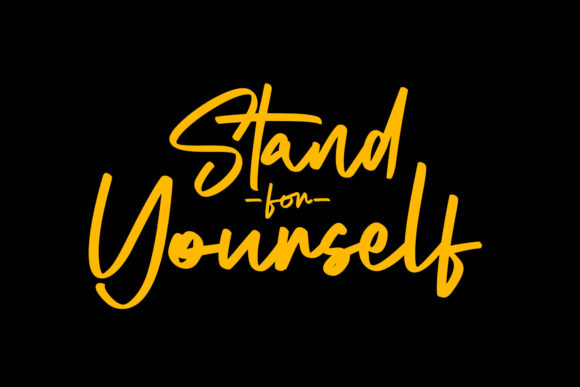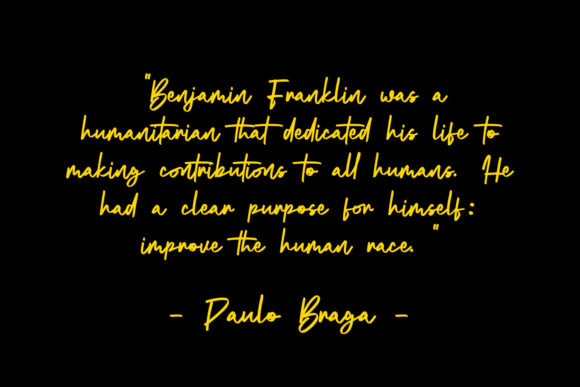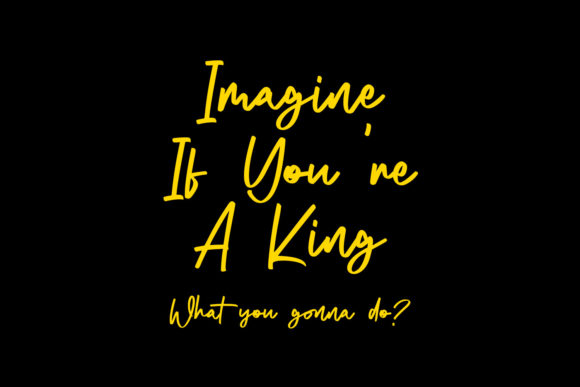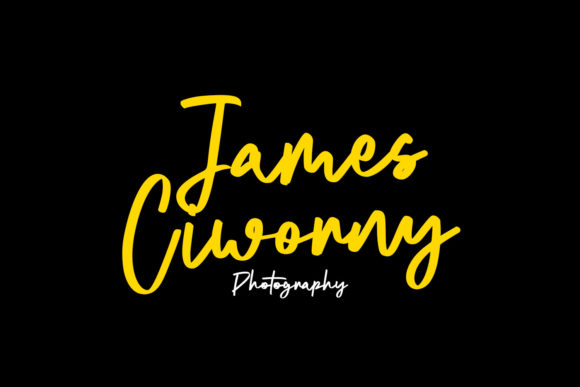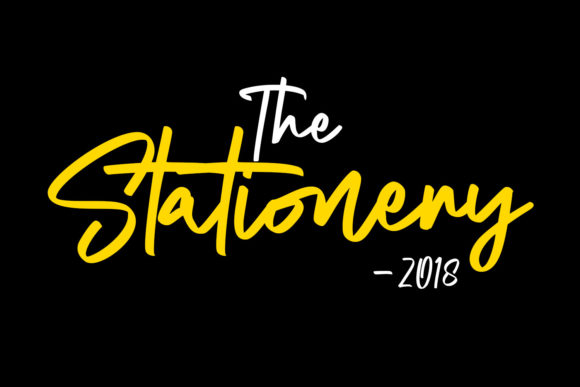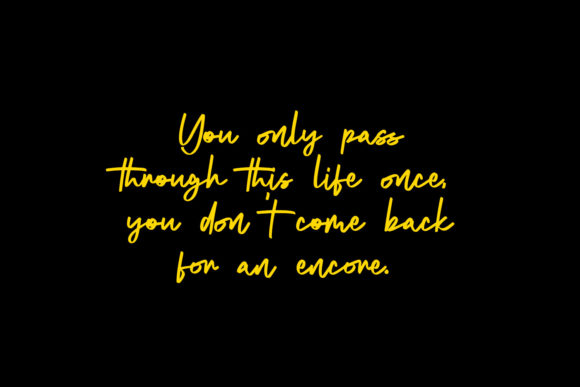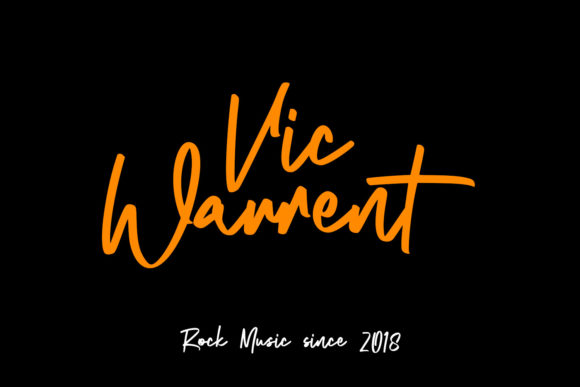
The Impostor Script Font
About The Impostor Script Font
The Impostor Script is a cute, relaxed and adaptable handwritten font. Simple but with a strong visual effect, this font will instantly make your creation more appealing than any others.